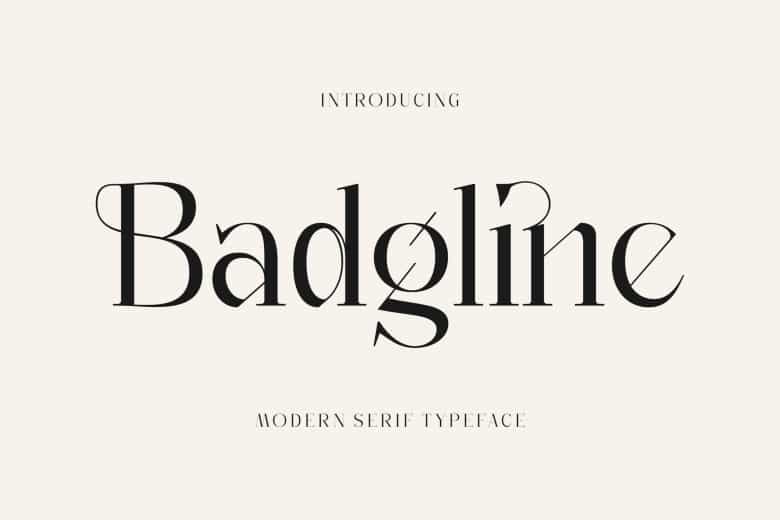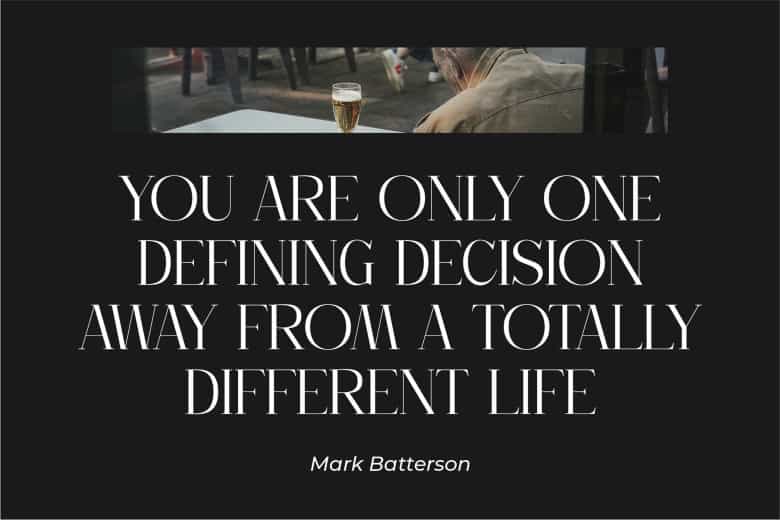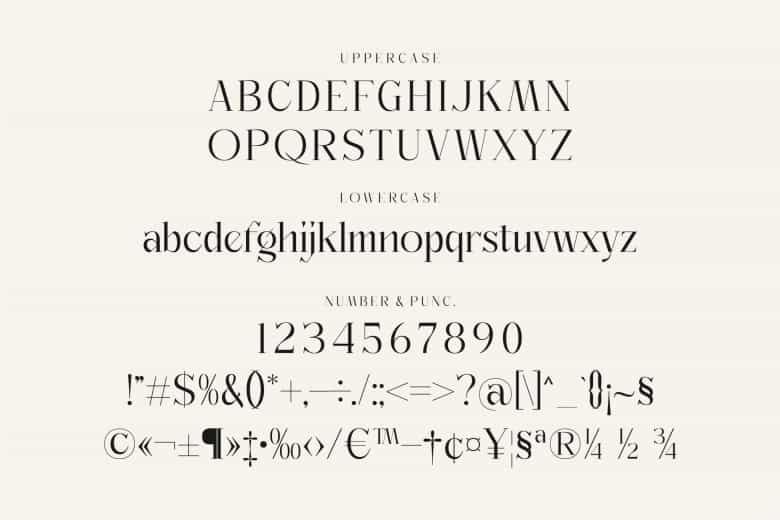
Badgline font is an edgy yet timeless serif font with its own distinct style and modern appearance, perfect for use as logo design, movie/book name design, fashion clothing brand name designs, magazine lettering, quote displays or quotes and many other applications.